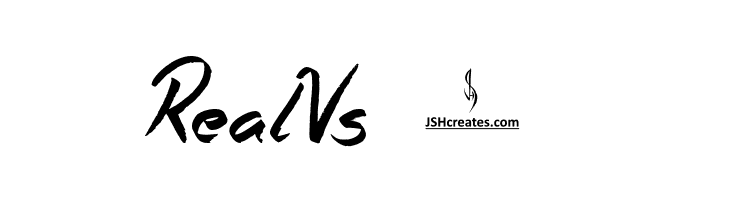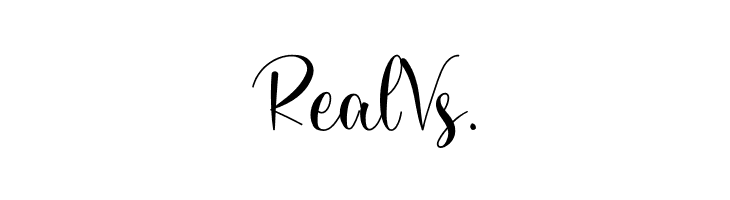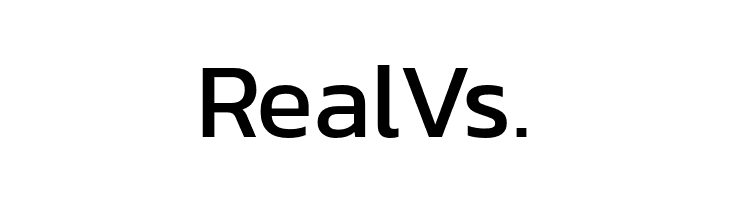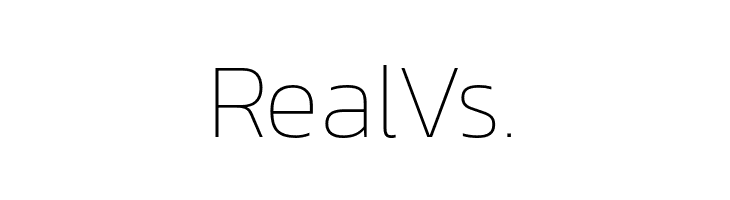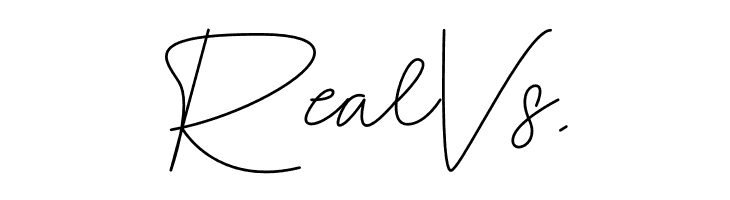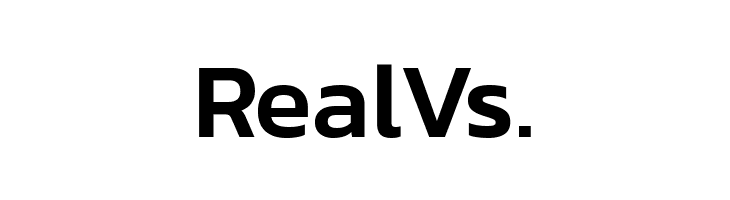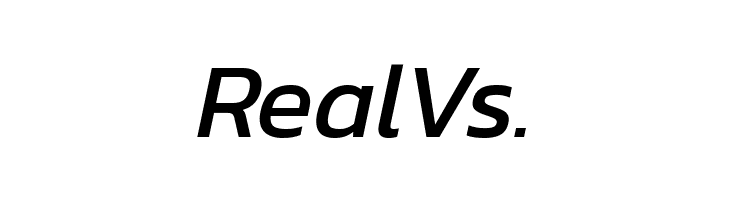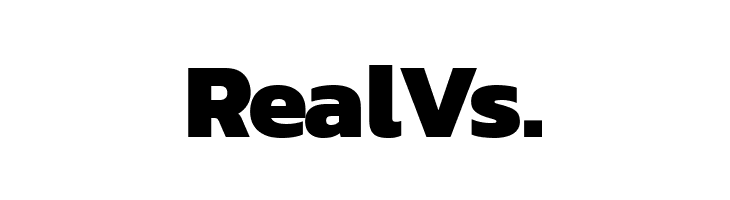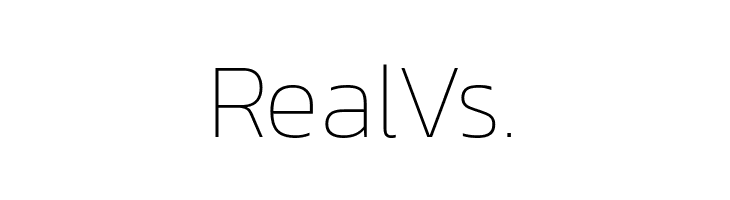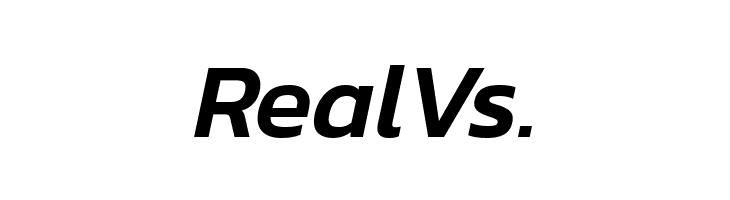
A fluid and elegant script font with medium contrast and graceful letterforms.
A playful, handwritten font with tall, narrow letters and flowing curves.
Elegant cursive script font.
A bold, brush-style font with dynamic strokes and a sense of motion.
A playful and elegant script font with flowing, cursive letters.
A fluid, cursive script font with elegant, connected characters.
A modern, geometric sans-serif font with a clean and versatile design.
A bold, geometric font with a modern and cohesive design.
A bold, italicized font with a dynamic and modern style.
A bold, modern sans-serif font with clean lines and a strong presence.
A bold, italicized typeface with a modern and dynamic style.
A bold, modern font with thick strokes and a strong presence.
A bold, italic sans-serif font with a dynamic and modern style.
A modern, geometric sans-serif font with a clean and sleek design.
A sleek, modern sans-serif font with an extra-light italic style.
A modern, italic font with a sleek and dynamic style.
A sleek, modern sans-serif font with a light, italic style.
A modern, geometric sans-serif font with balanced proportions and clear legibility.
A modern, medium-weight, italicized sans-serif font with clean lines and balanced proportions.
A modern, semi-bold sans-serif font with excellent legibility and versatility.
A modern, semi-bold italic font with a sleek and dynamic appearance.
A sleek, modern sans-serif font with thin, elegant lines and geometric precision.
A sleek, modern, and thin italic font with a clean and elegant design.
A bold, modern font with strong geometric shapes and consistent stroke widths.
A bold, modern sans-serif font with a strong and impactful design.
A modern, geometric sans-serif font with clean lines and balanced spacing.
A modern, geometric sans-serif font with balanced spacing and clear readability.
A modern sans-serif font with a clean and balanced design.
A modern, geometric sans-serif font with a clean and balanced design.
A modern, semi-bold sans-serif font with clean lines and balanced proportions.
A modern, thin sans-serif font with a geometric and minimalist design.